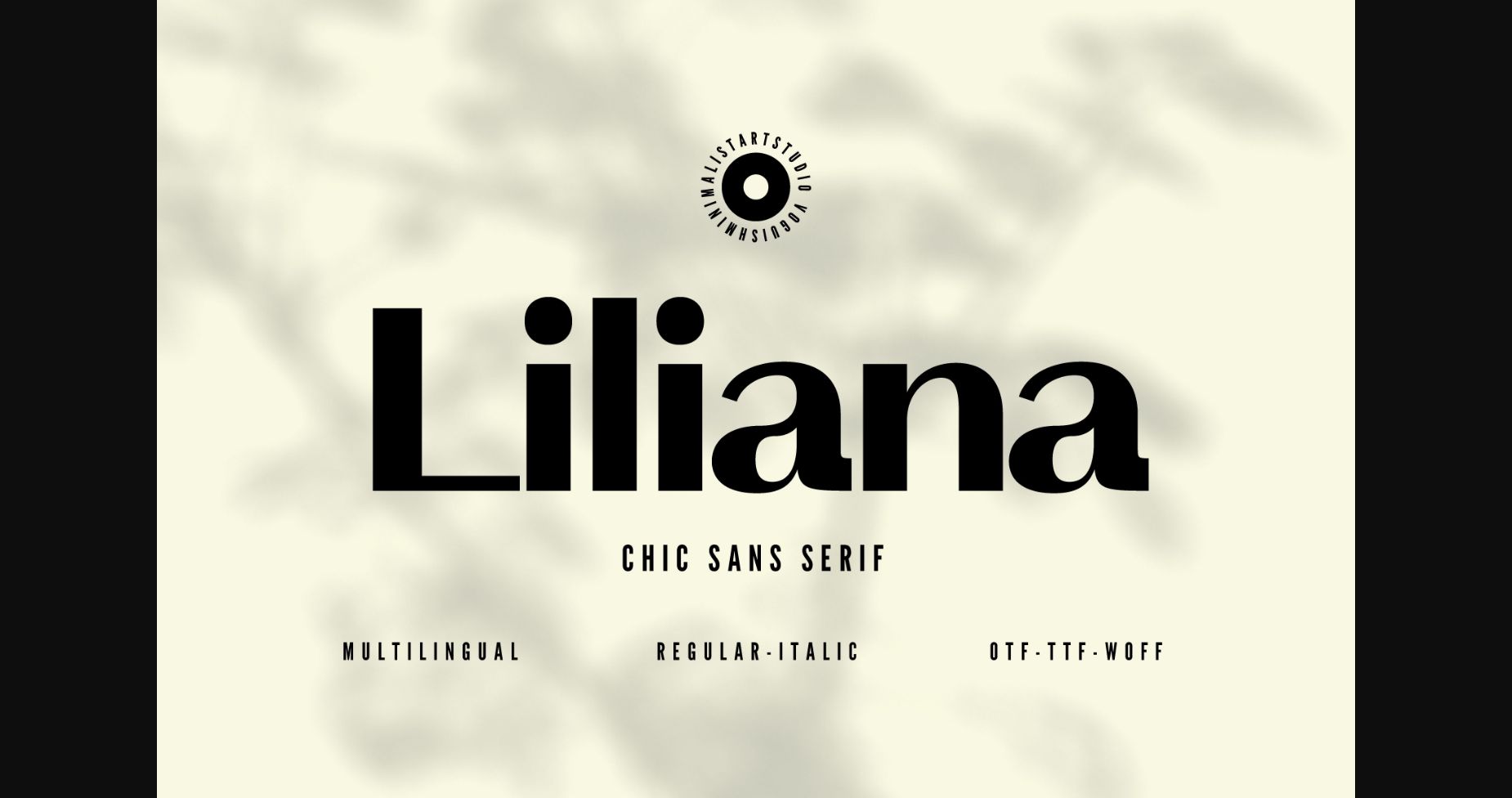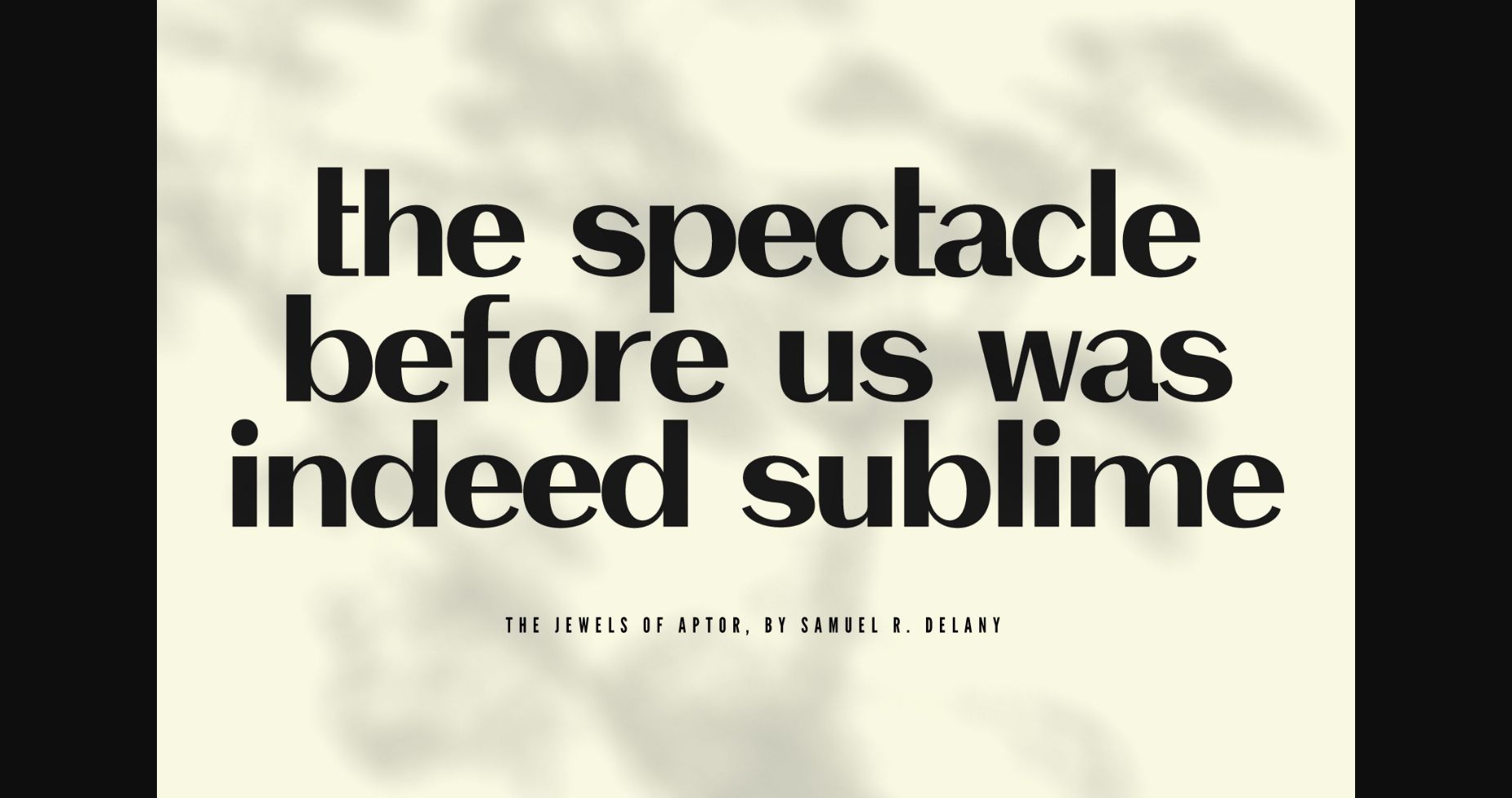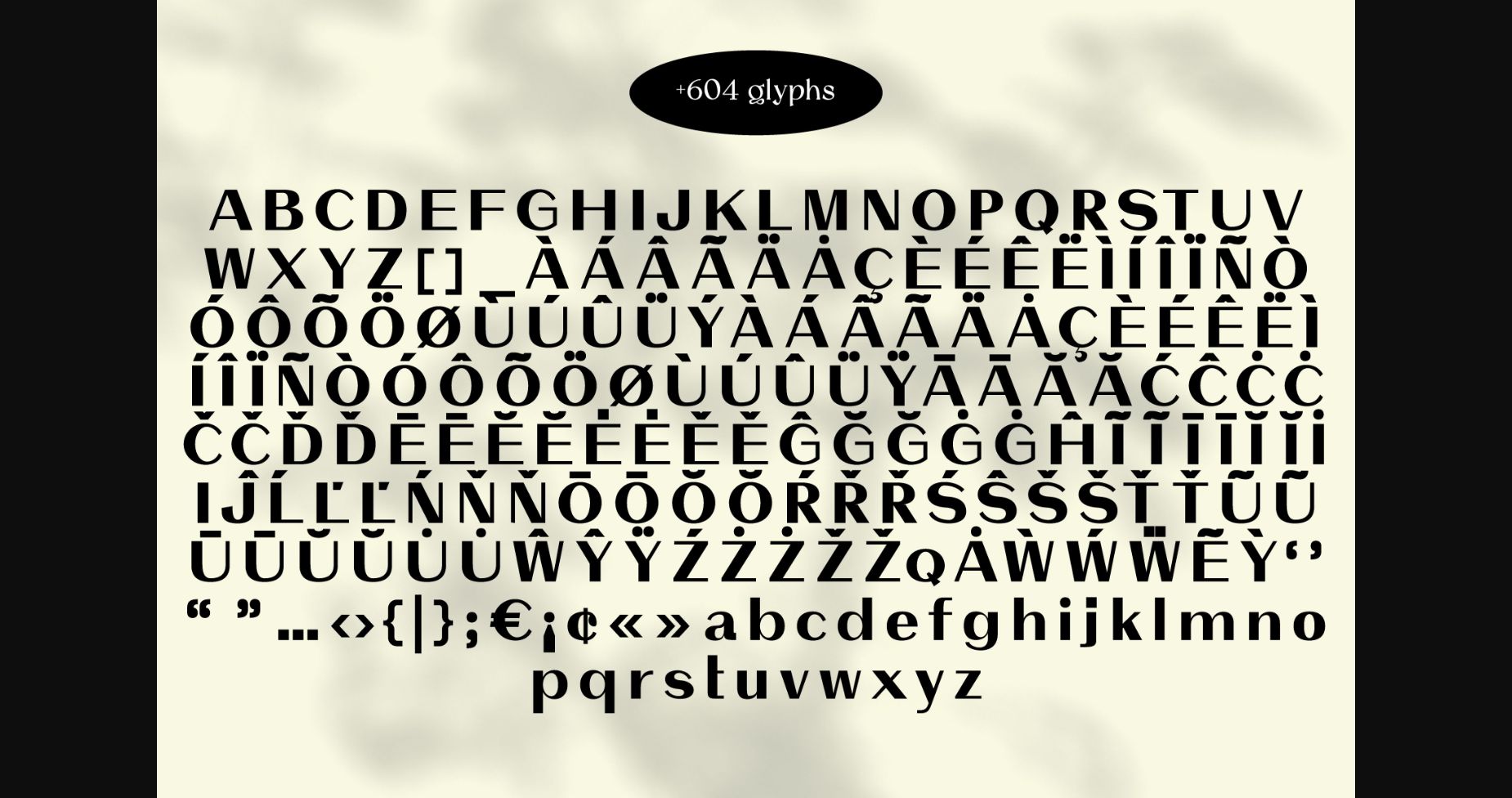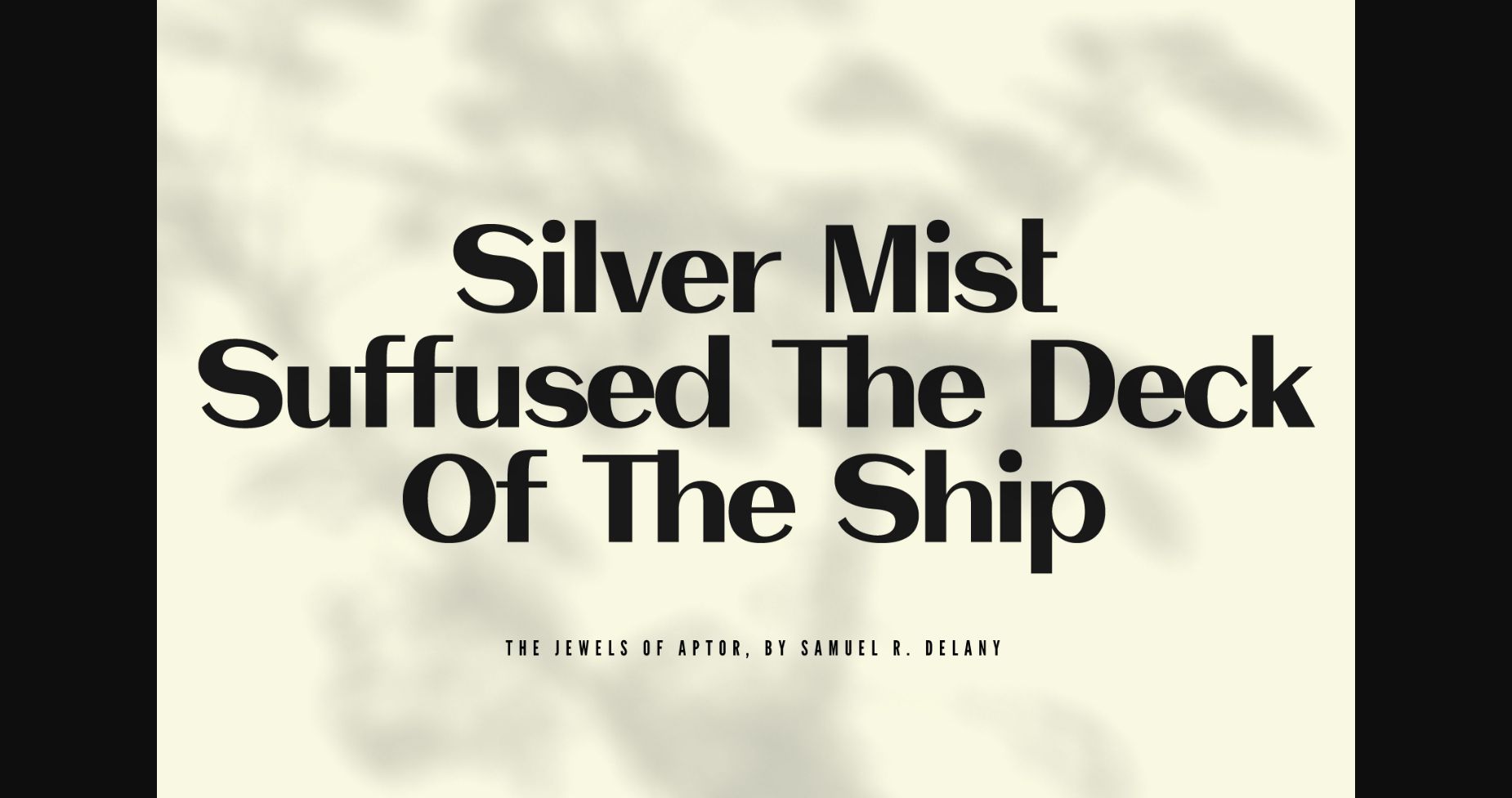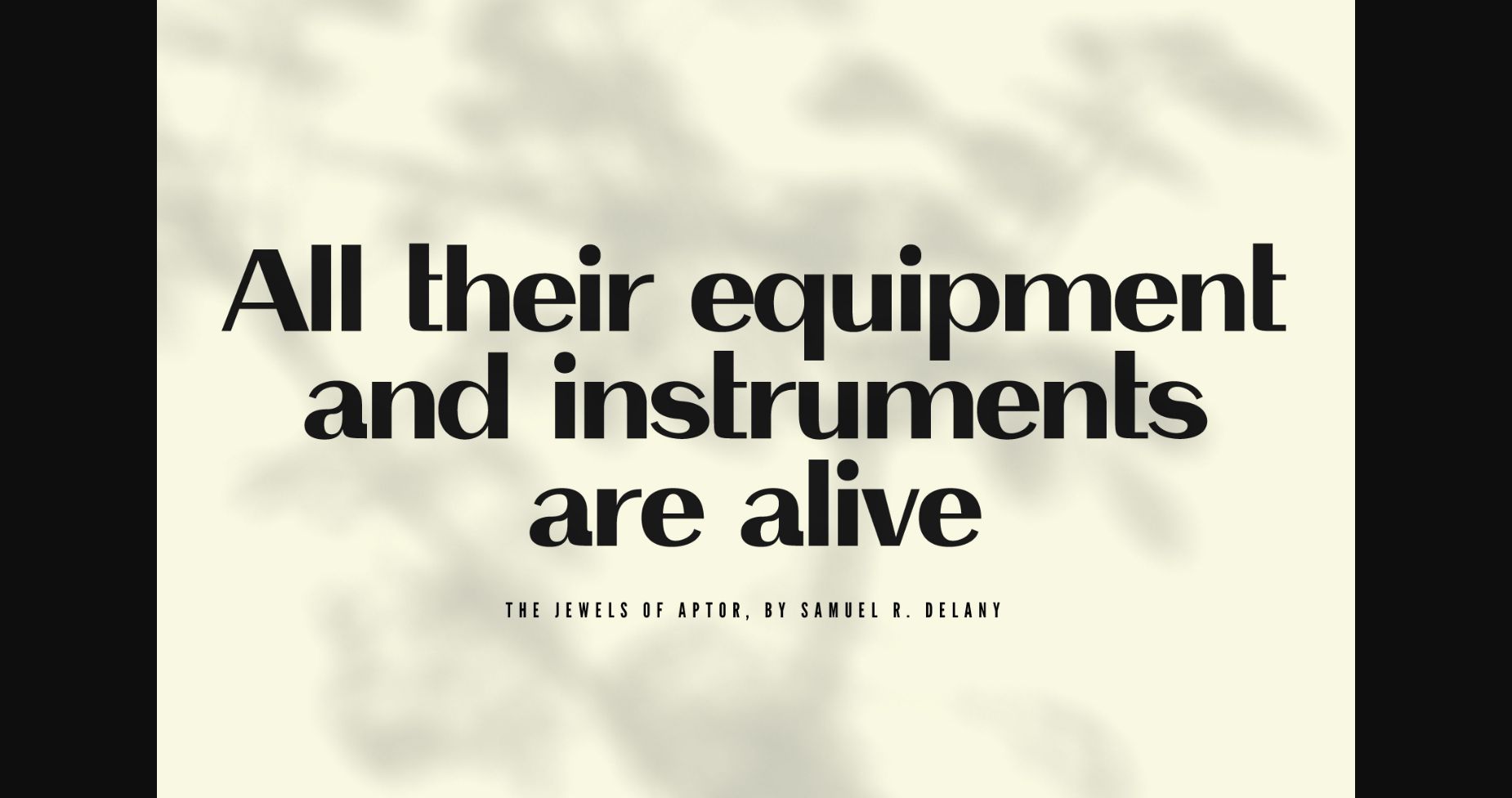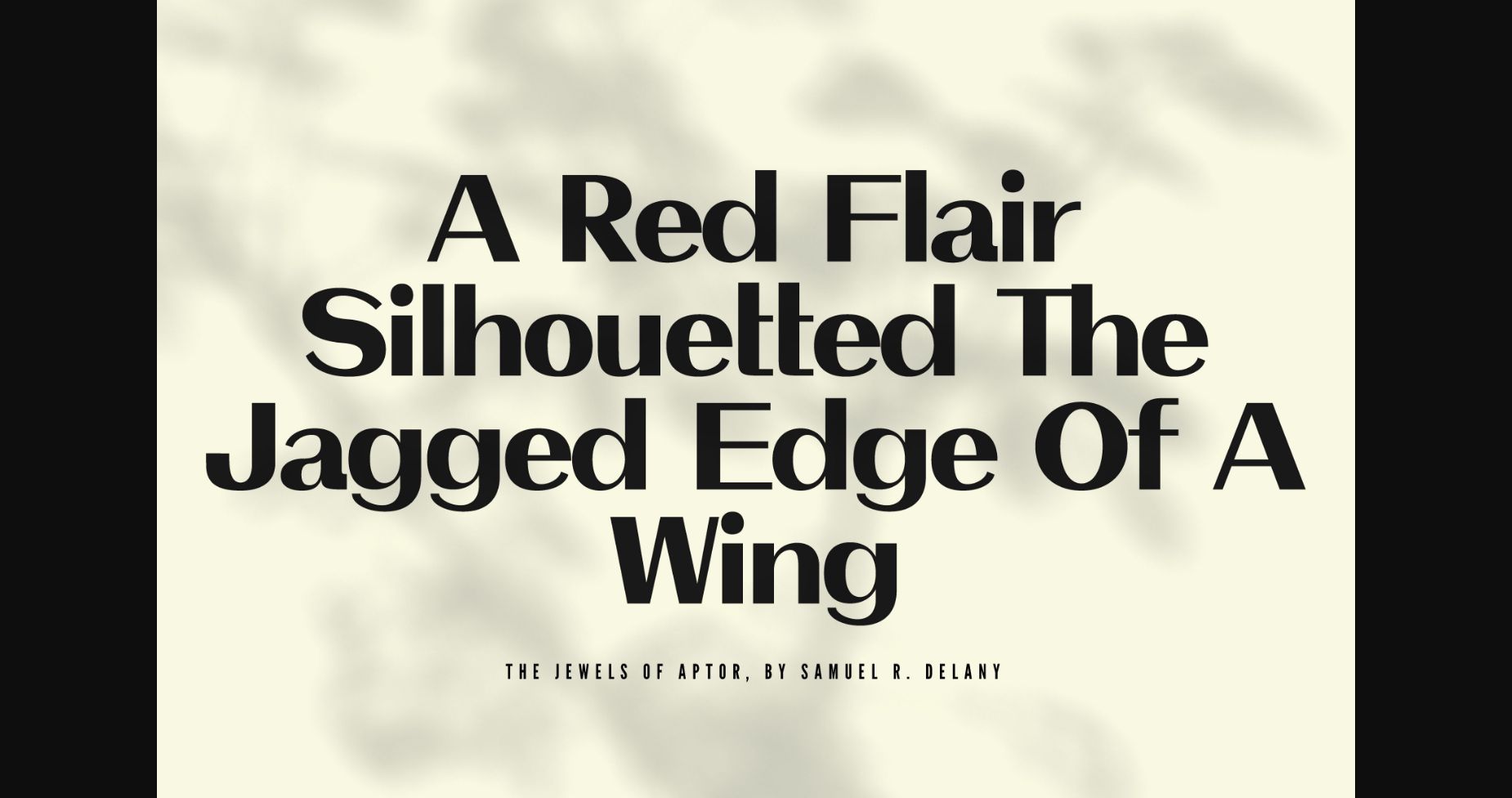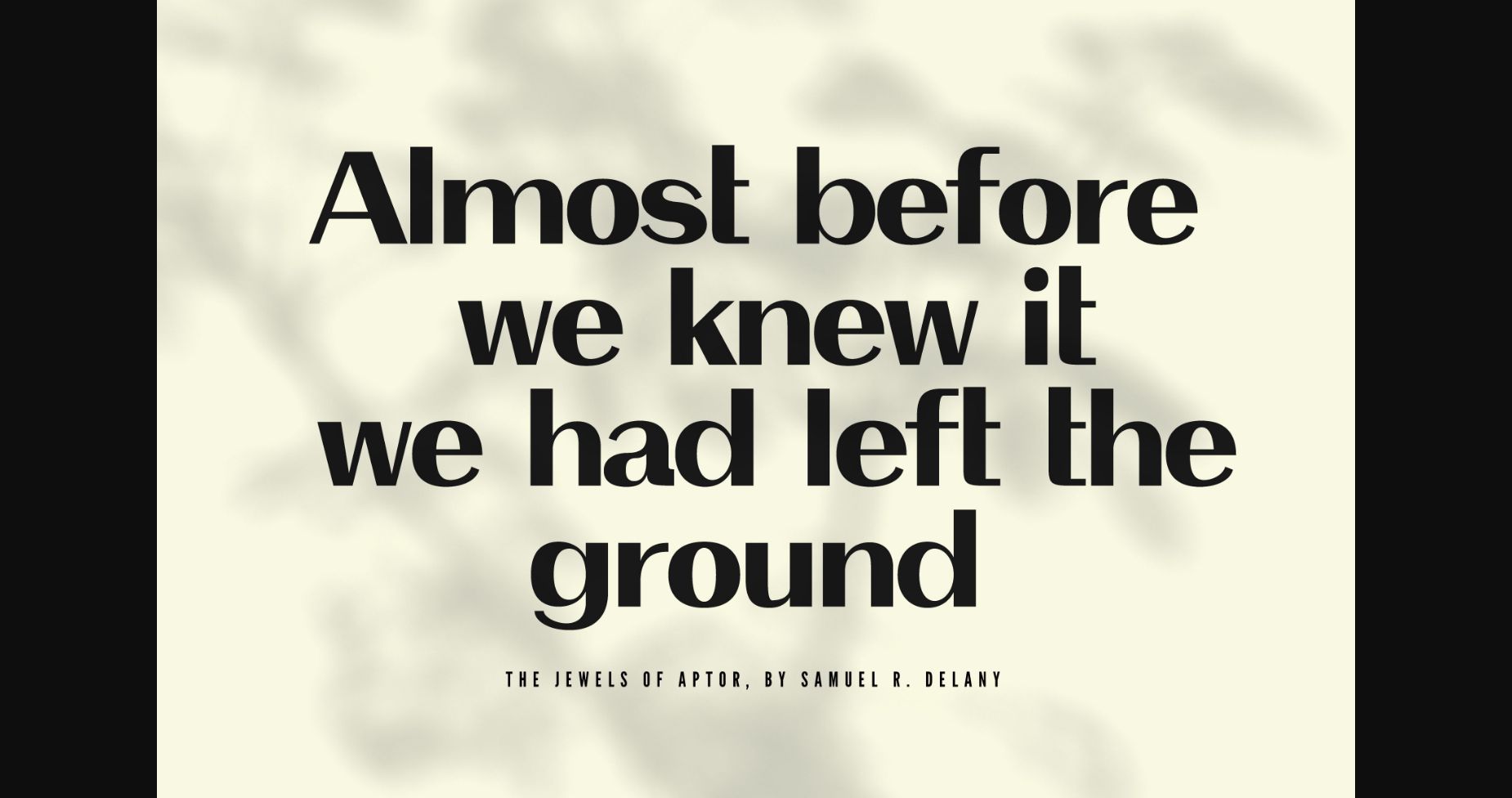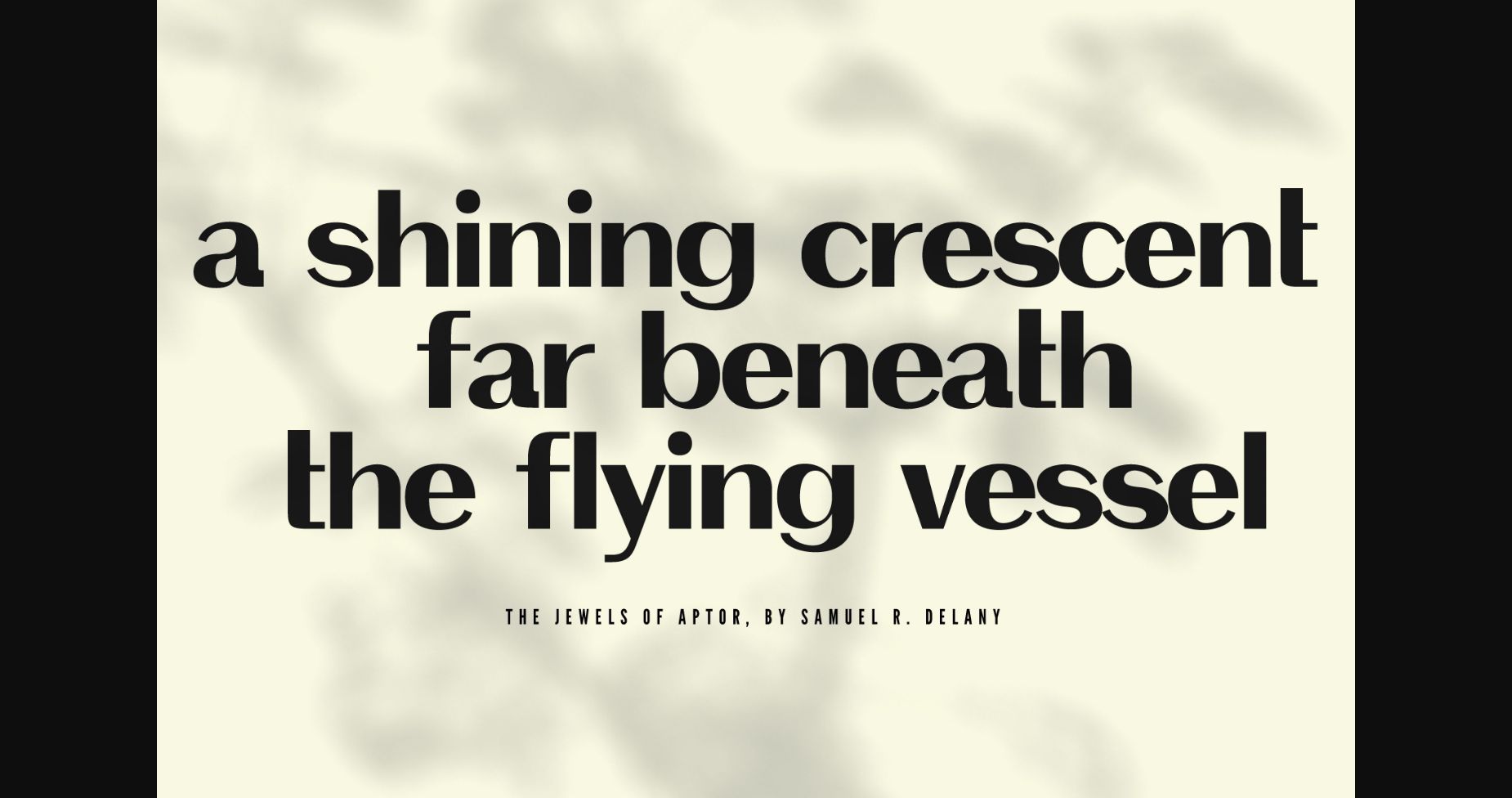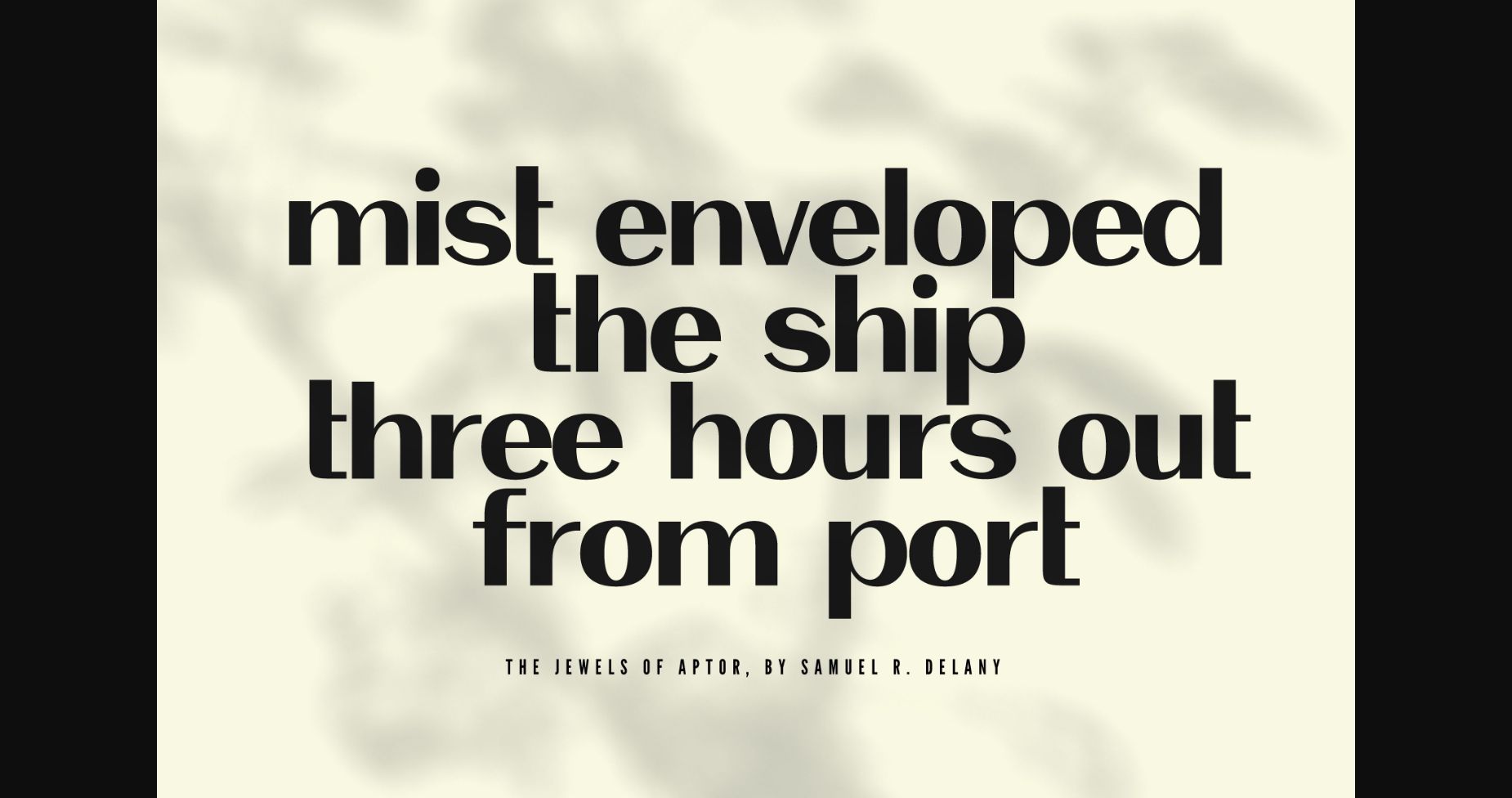
Liliana Font
About Liliana Font
Introducing Liliana, the ultimate font for the modern, sophisticated design. With its chic, elegant, and minimalist style, Liliana is the perfect choice for those who want to create a sleek and contemporary look.
Featuring over 604 glyphs, Liliana has a wide range of characters and symbols to choose from, making it incredibly versatile for any project. Its clean and simple lines create a sense of balance and harmony, making it easy on the eyes and perfect for extended reading.
Liliana also boasts multi-lingual support, with a wide range of characters that allow it to be used in many languages. Whether you’re creating a website, a print ad, or a branding project, Liliana will provide the perfect balance of style and functionality.